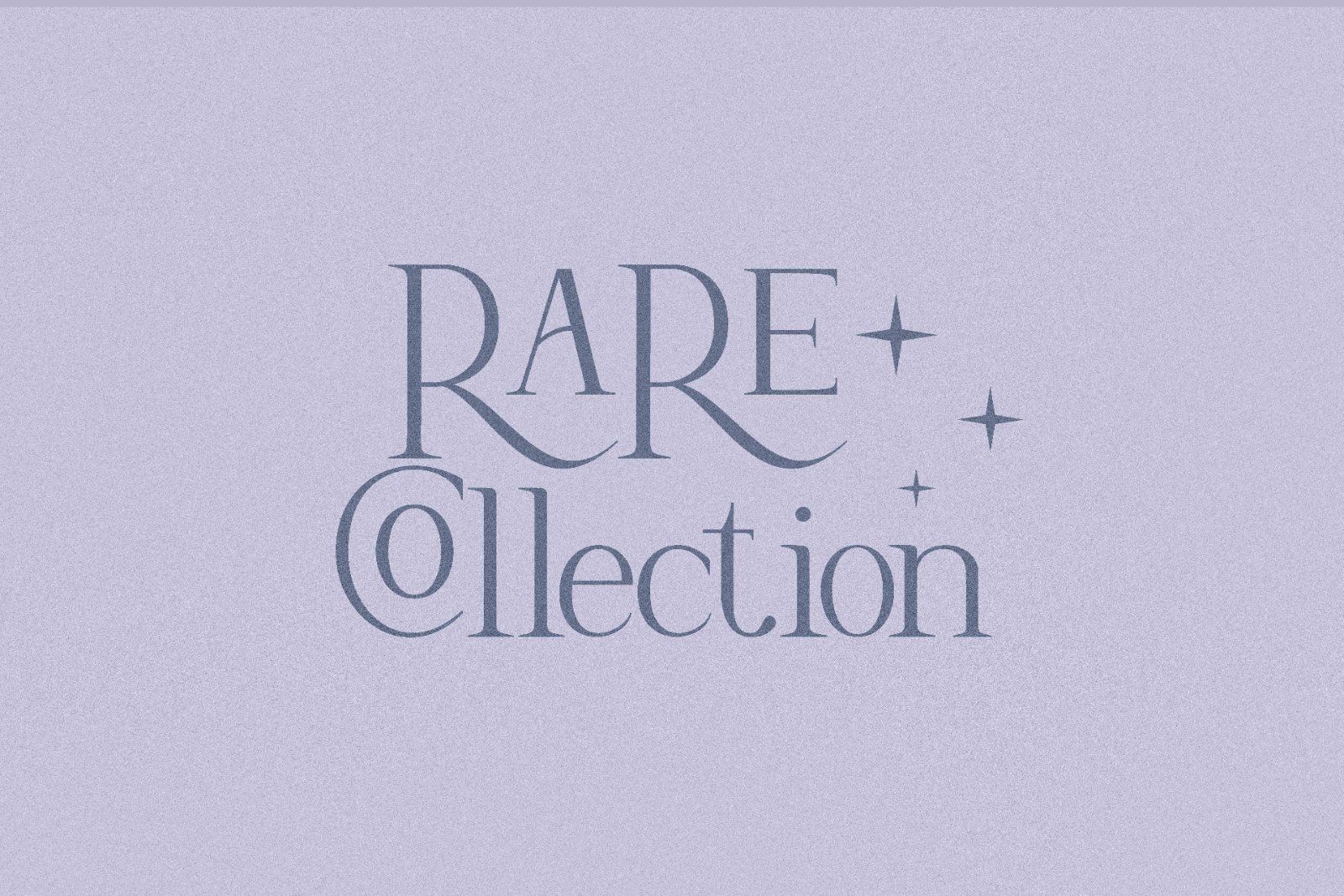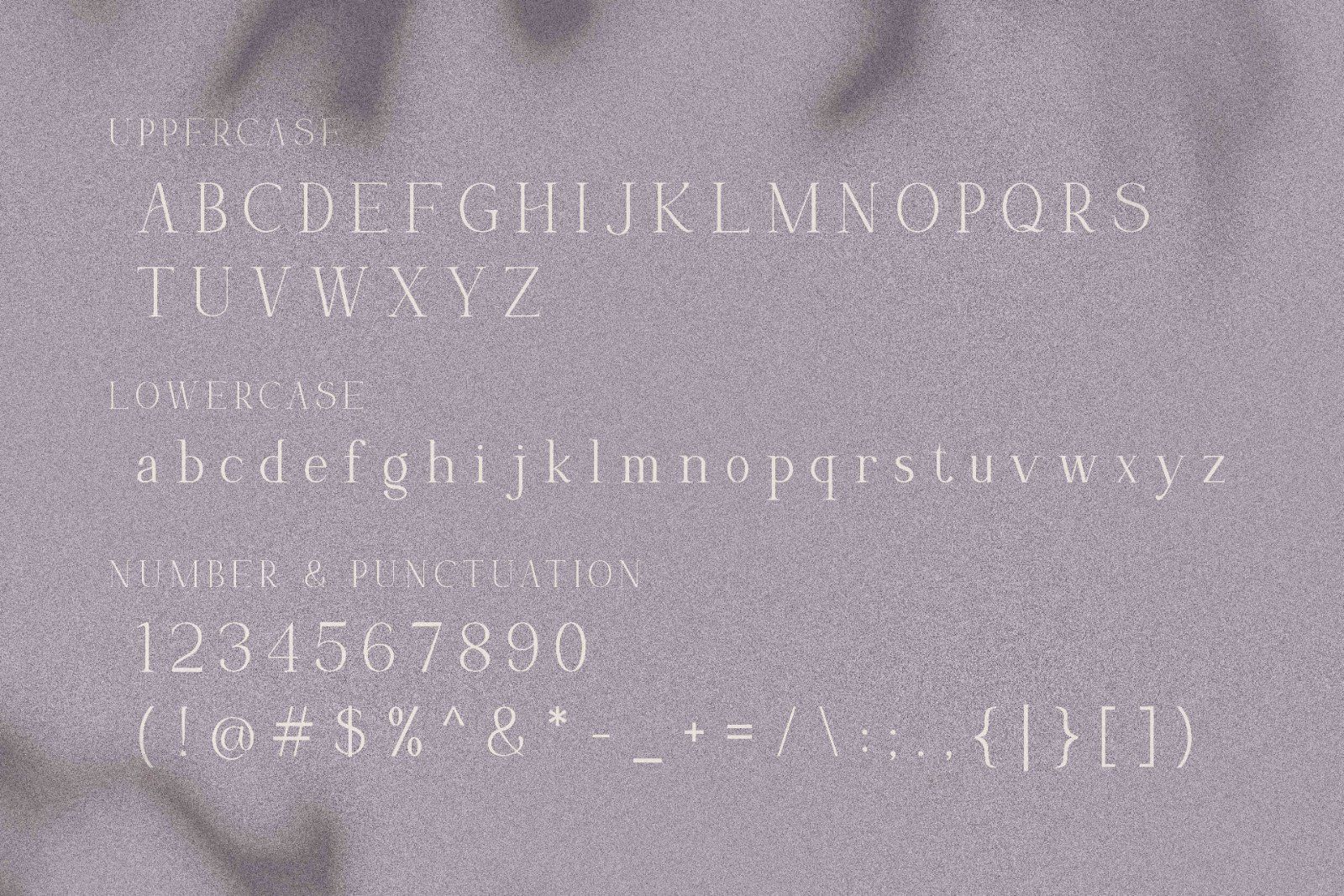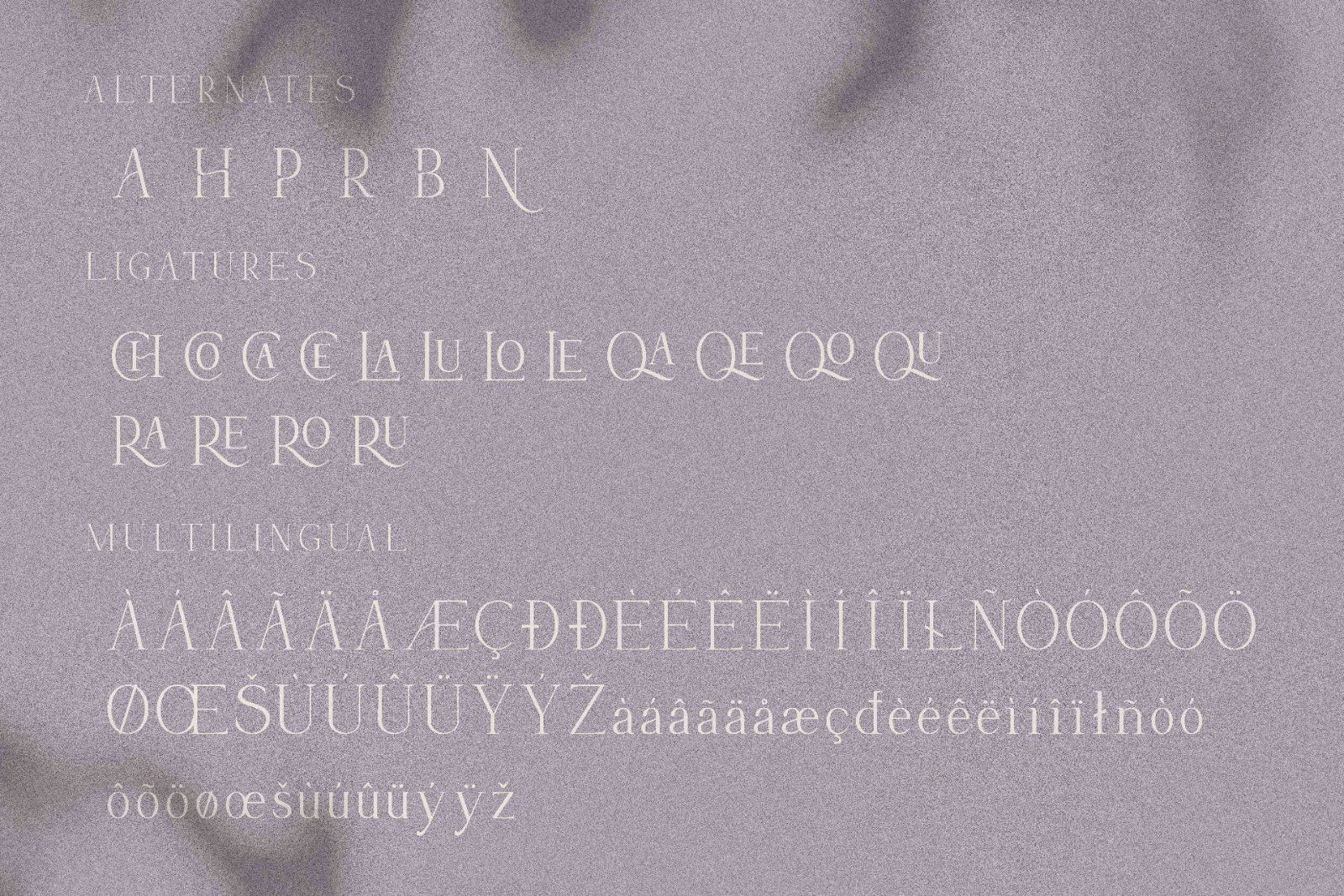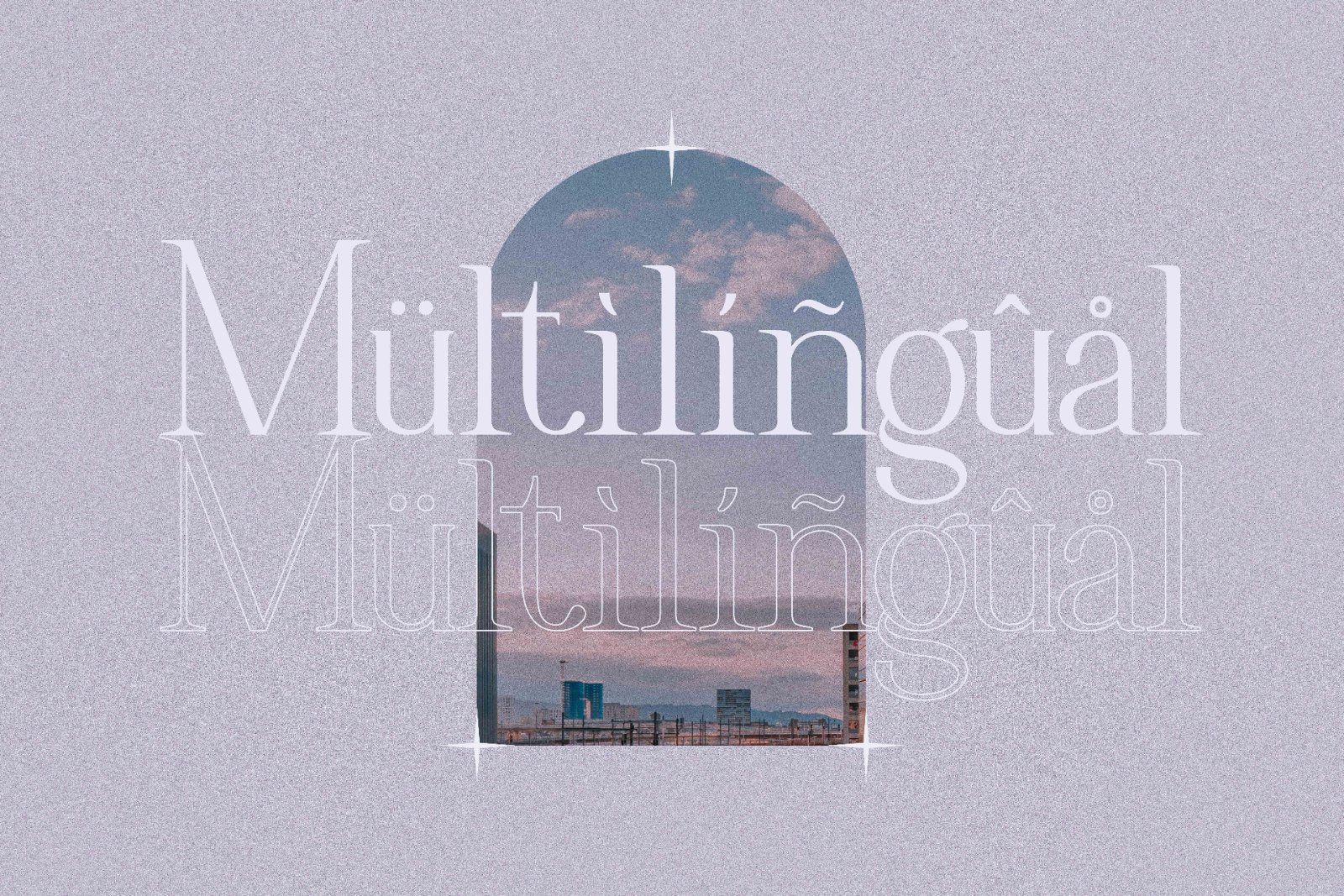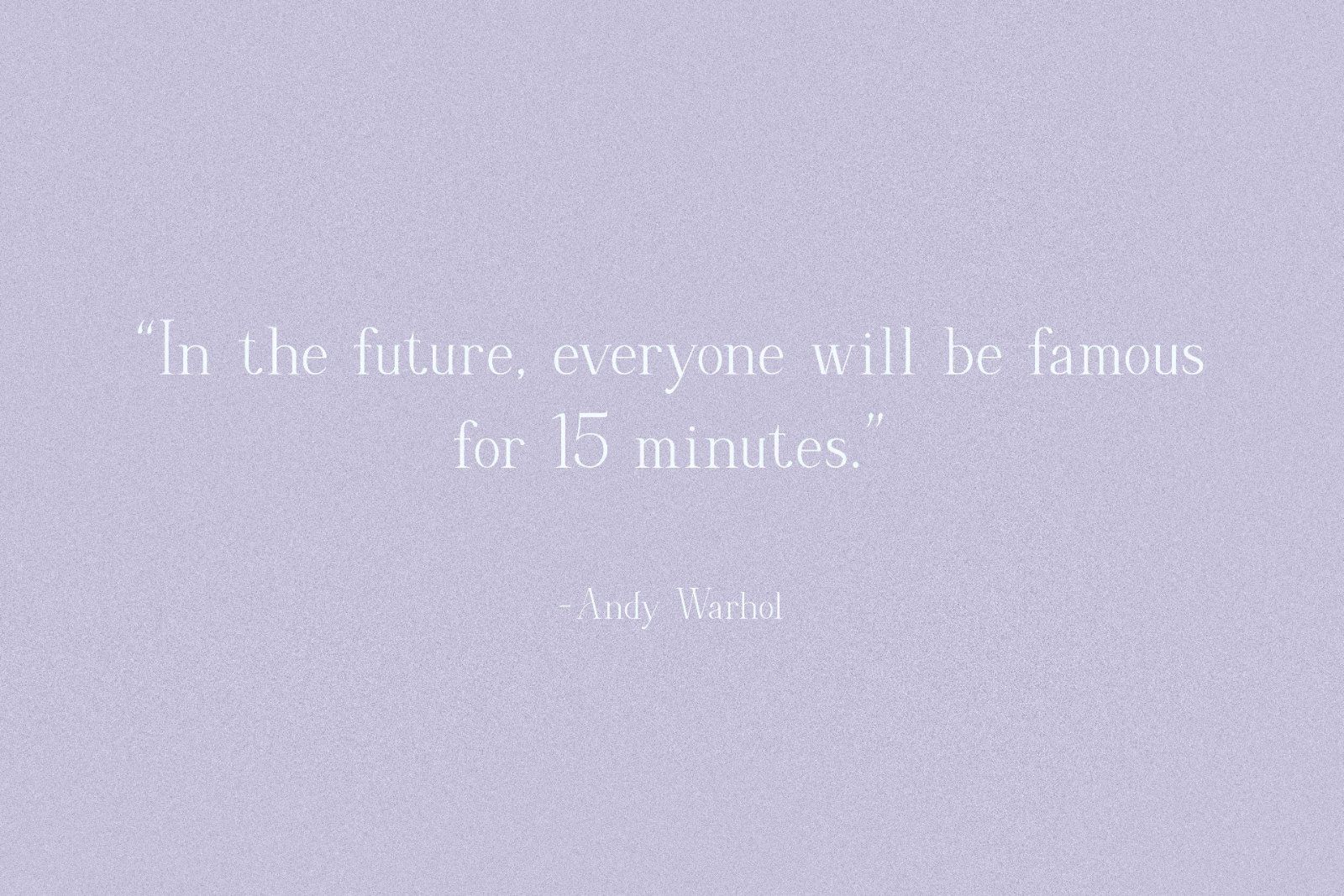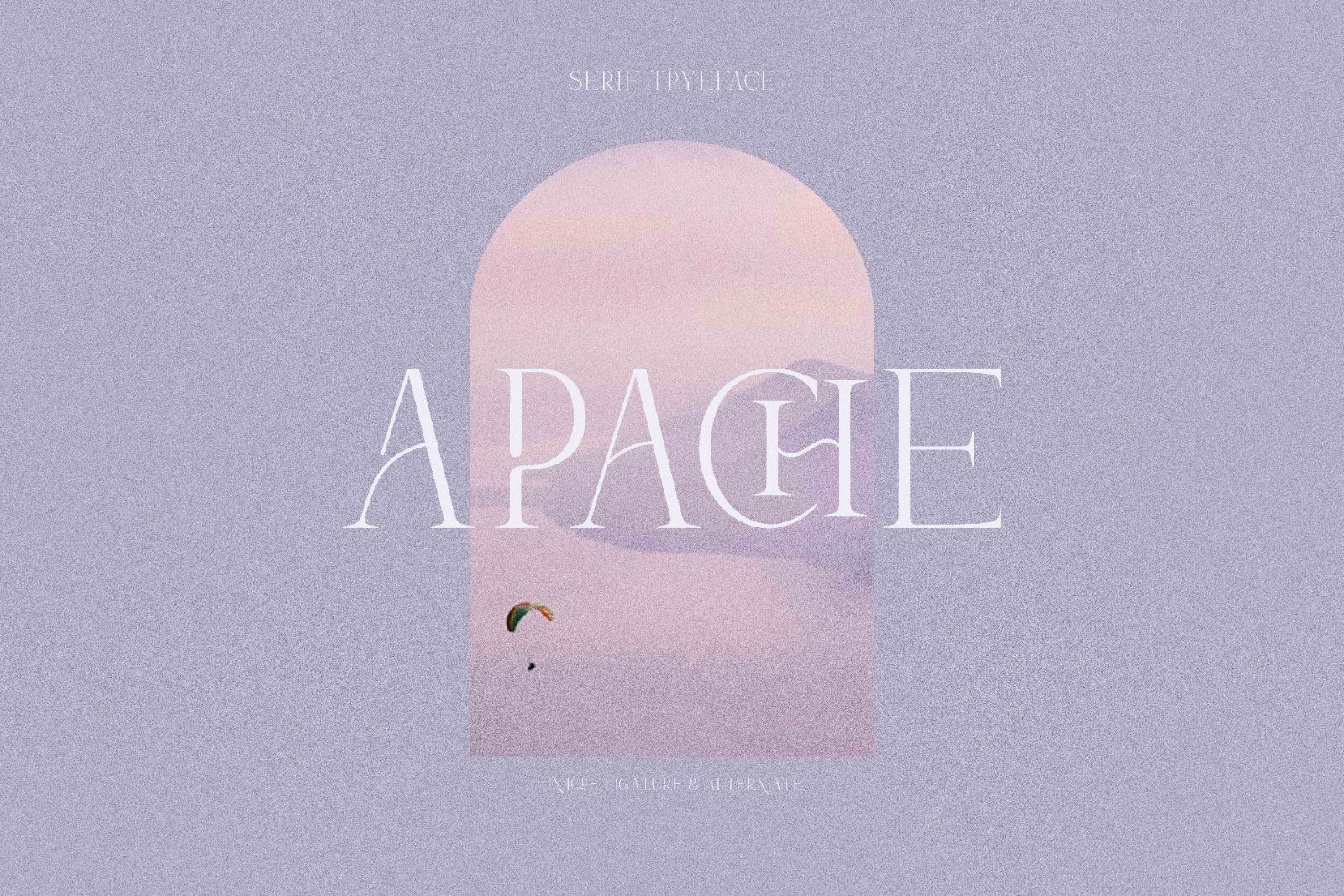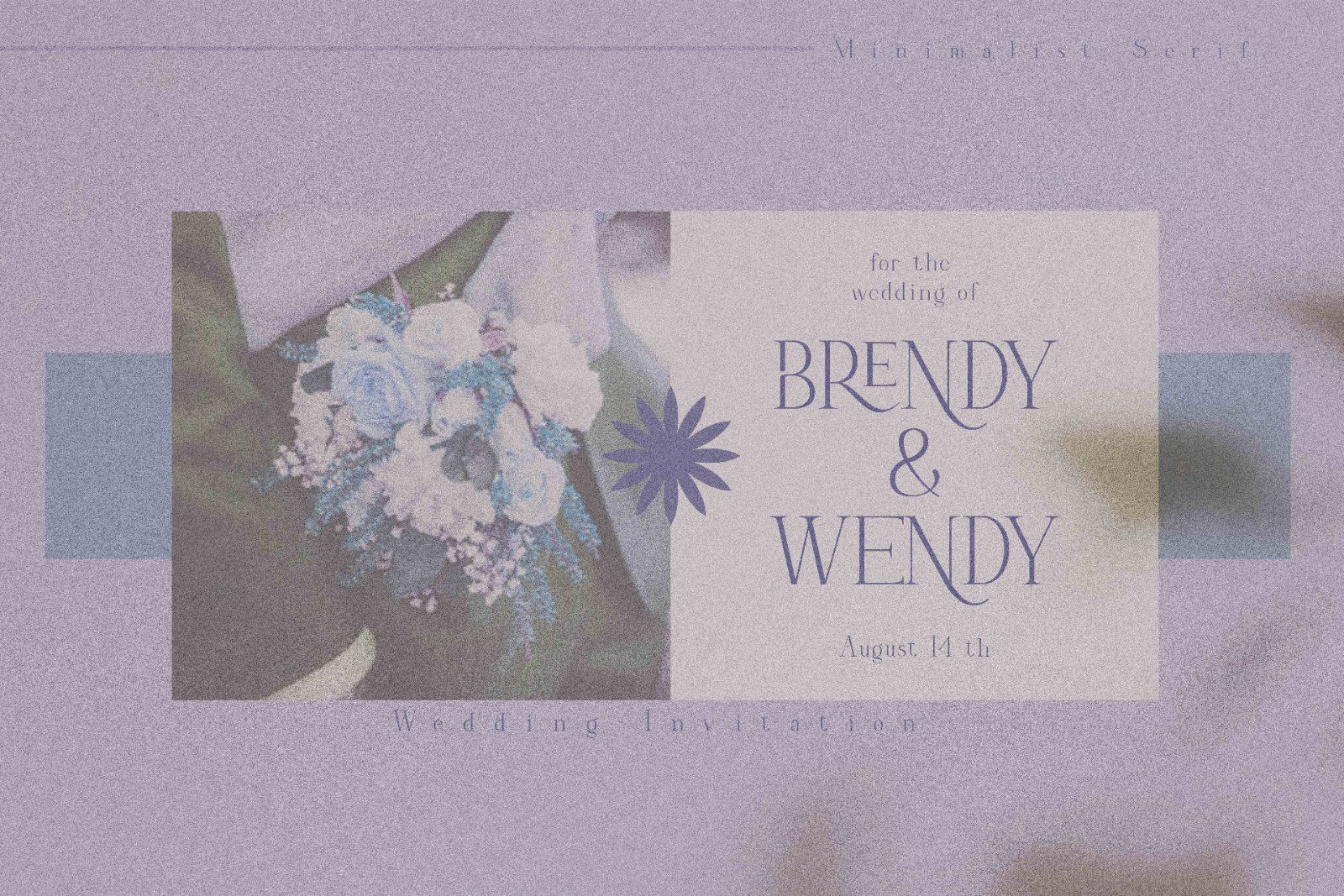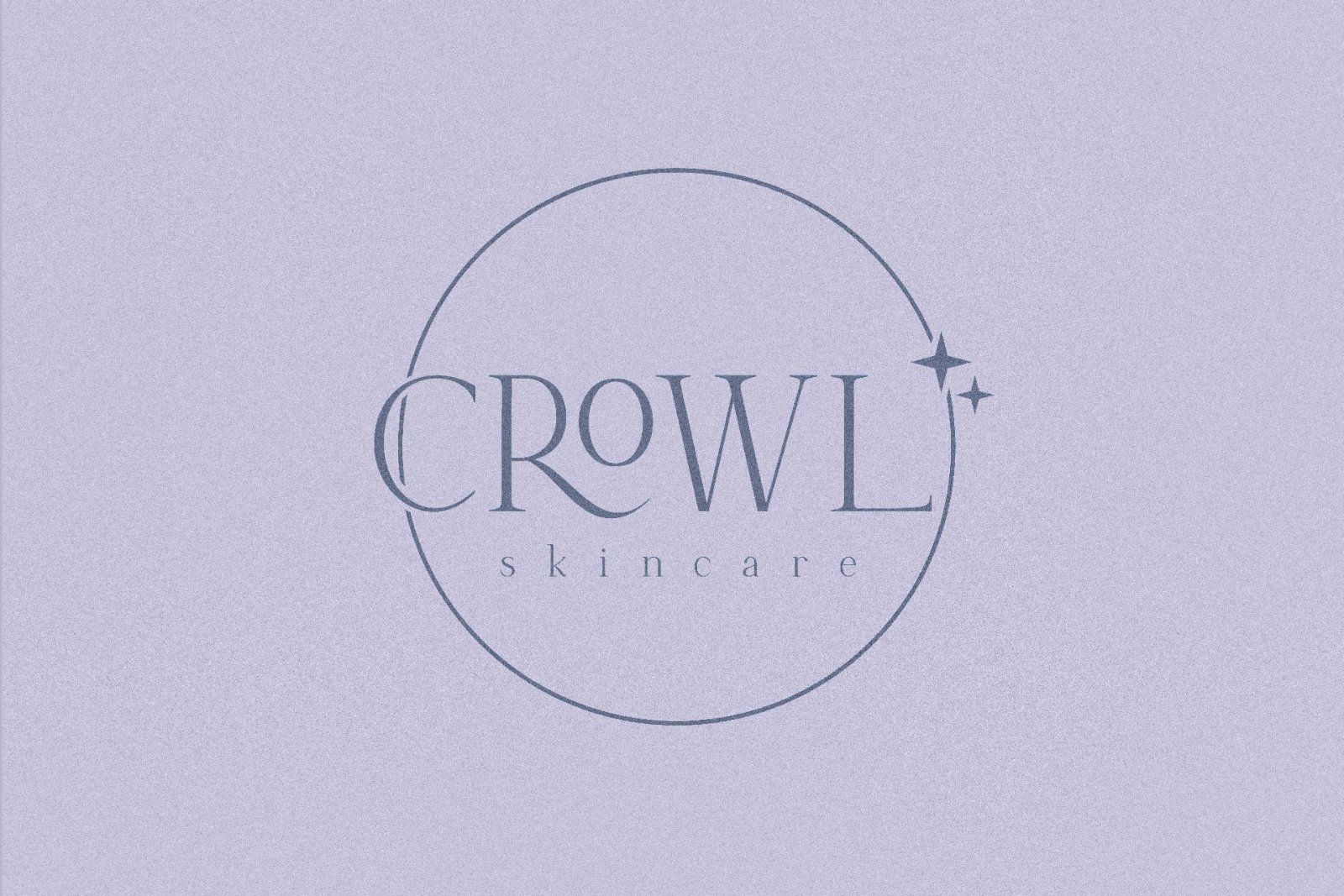
Hisav is a refined modern serif font that combines elegant proportions with a clean and sophisticated character. Featuring high-contrast strokes, delicate serifs, and graceful curves, Hisav creates a luxurious yet contemporary look that feels both timeless and stylish.
• Uppercase alphabet A-Z
• Lowercase alphabet a-z
• Alternate Character
• Numbers 0-9
• Some punctuation